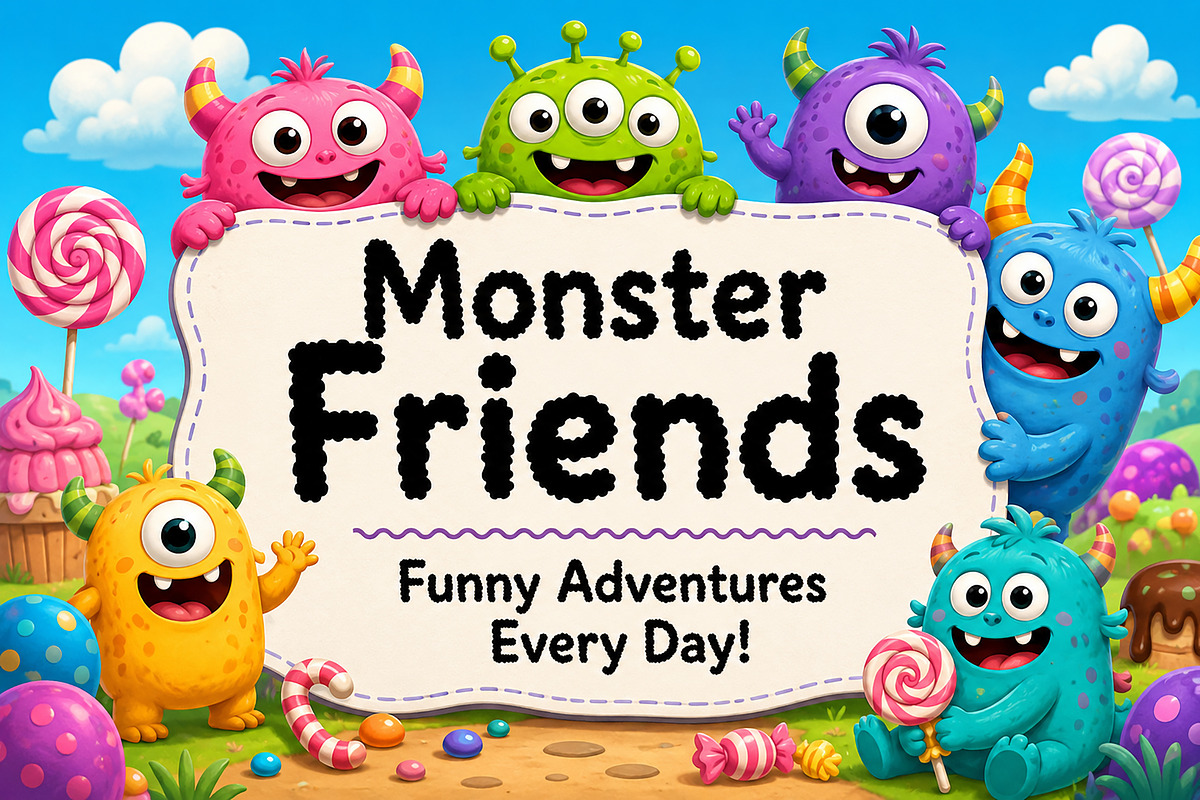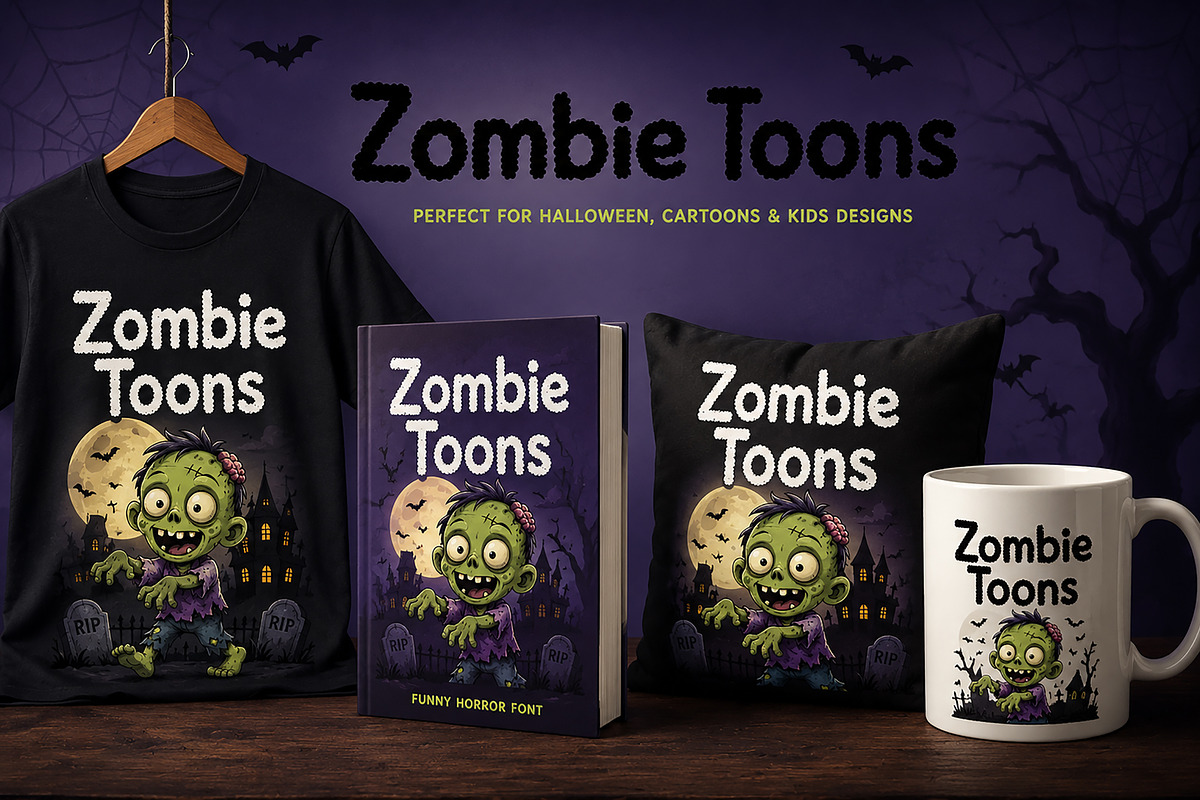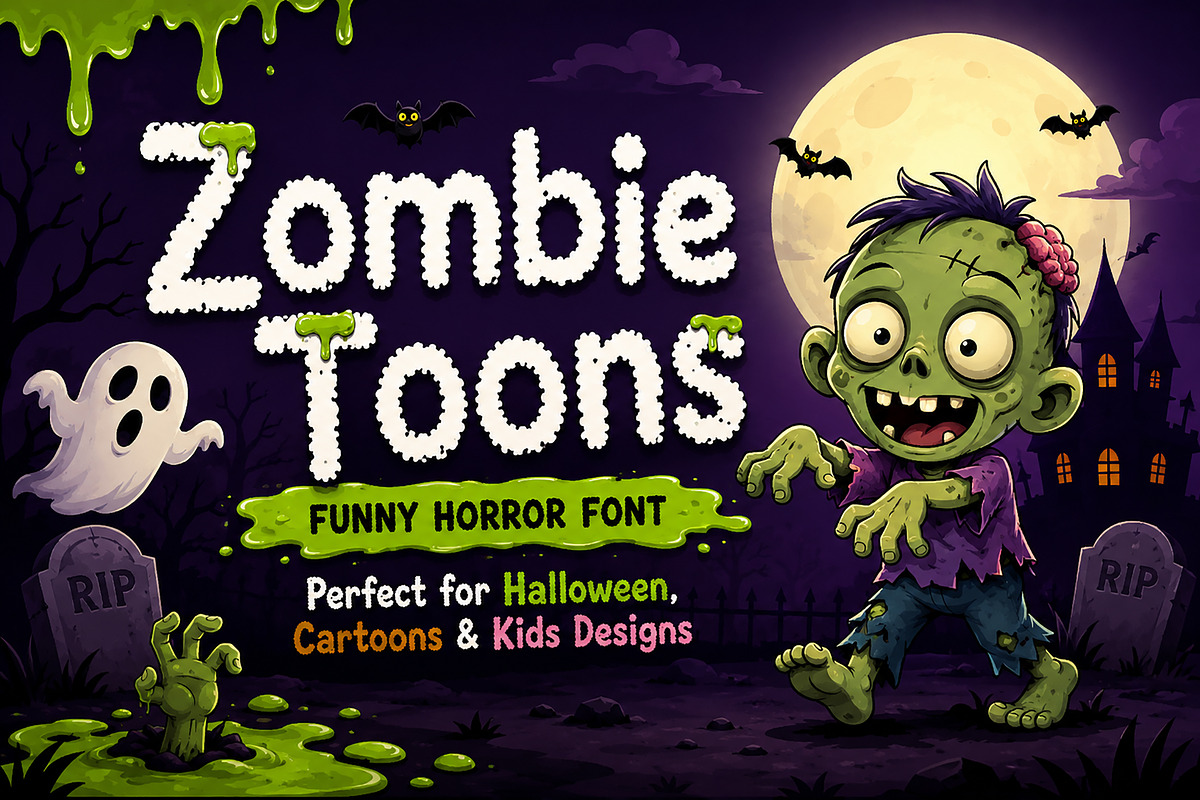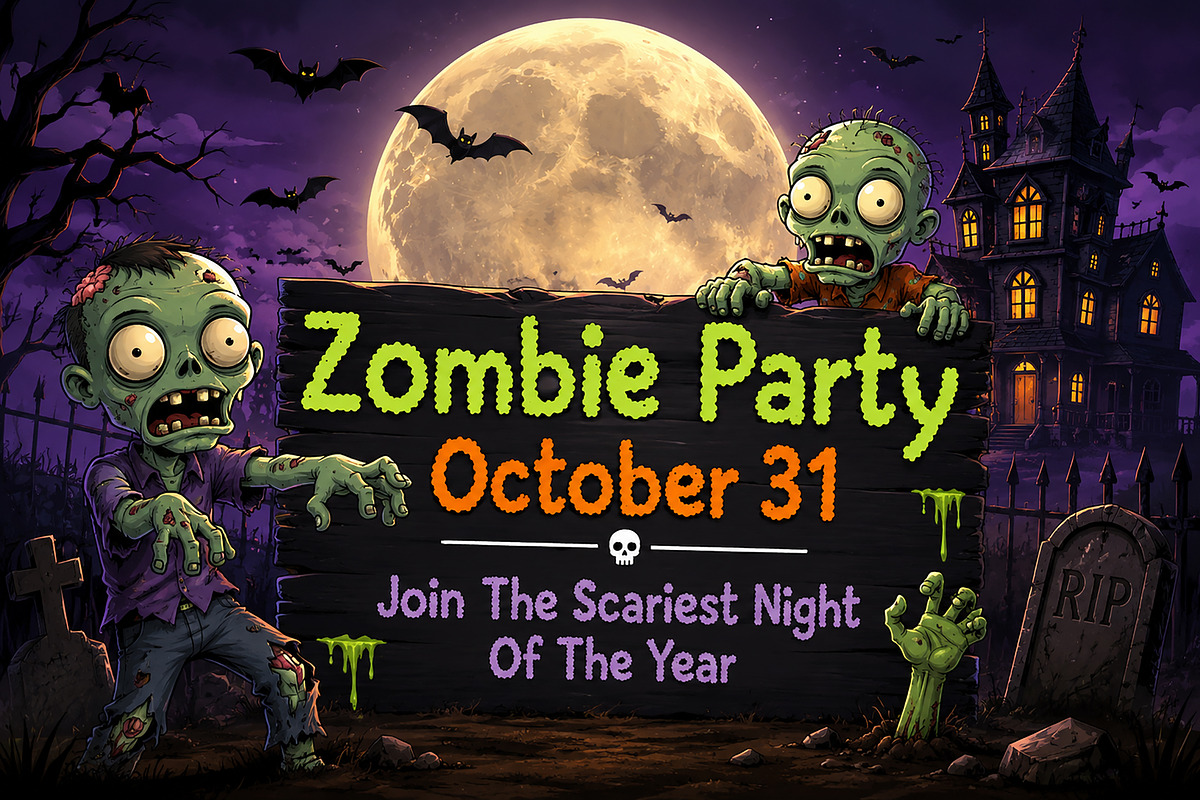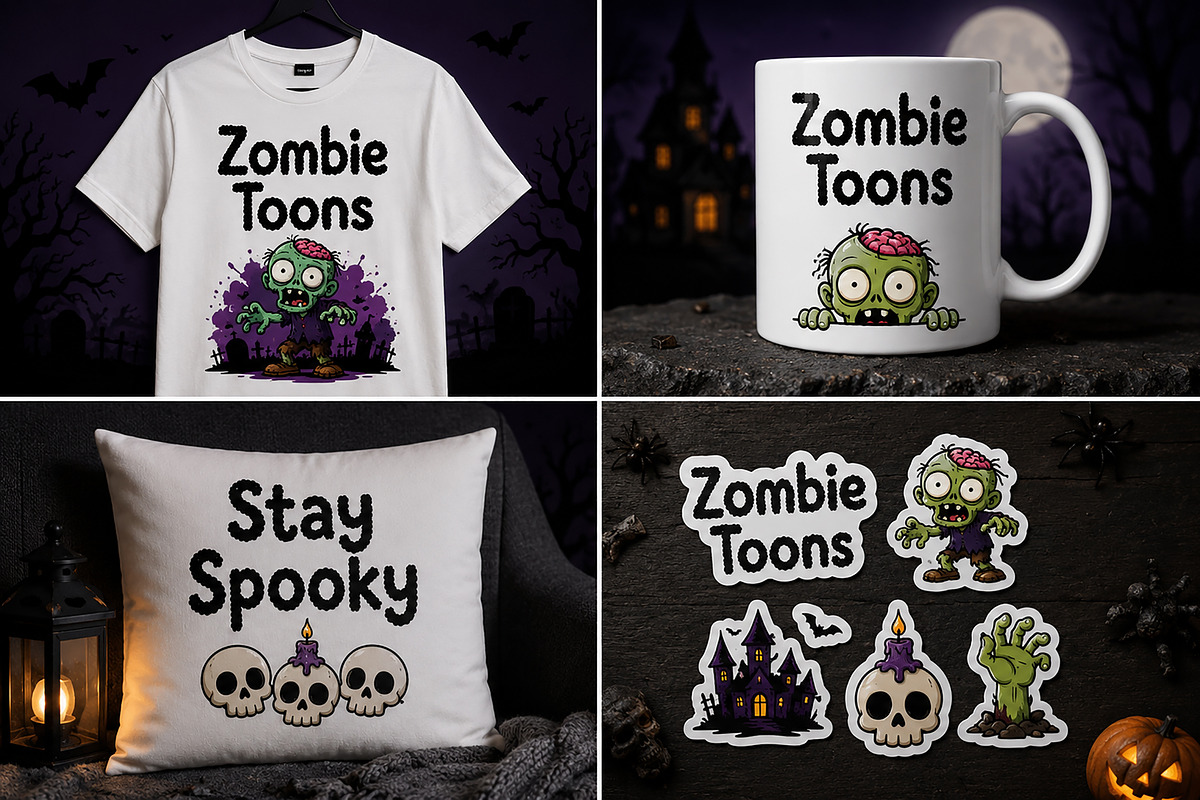
Zombie Toons
Zombie Toons – Funny Horror Cartoon Font
Zombie Toons is a playful and spooky display font inspired by cartoon zombies, Halloween adventures, and fun monster stories. With its bumpy, irregular letterforms and quirky horror personality, this font perfectly balances creepy and cute, making it ideal for both kids' designs and Halloween-themed projects.
Whether you're creating party invitations, comic book titles, YouTube thumbnails, children's merchandise, spooky branding, stickers, posters, or seasonal marketing materials, Zombie Toons delivers a fun horror vibe that instantly grabs attention.
Designed to be bold, readable, and full of character, Zombie Toons brings a unique cartoon-monster energy to every project.
Halloween Designs
Kids' Projects
Cartoon Titles
Comic Books
YouTube Thumbnails
Party Invitations
Stickers & Labels
T-Shirt Designs
Posters & Flyers
Craft Projects
Branding & Packaging
Bring your spooky ideas to life with the fun and quirky charm of Zombie Toons!